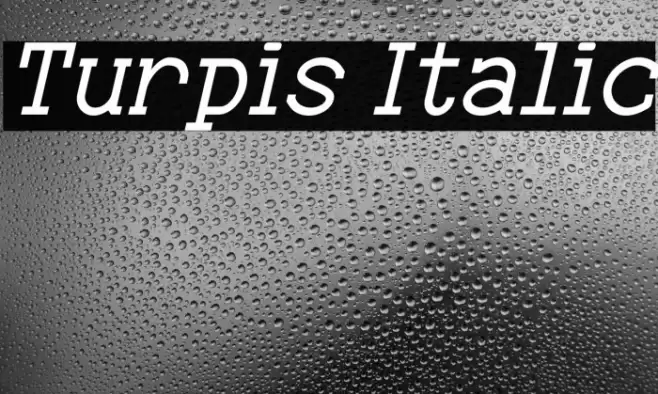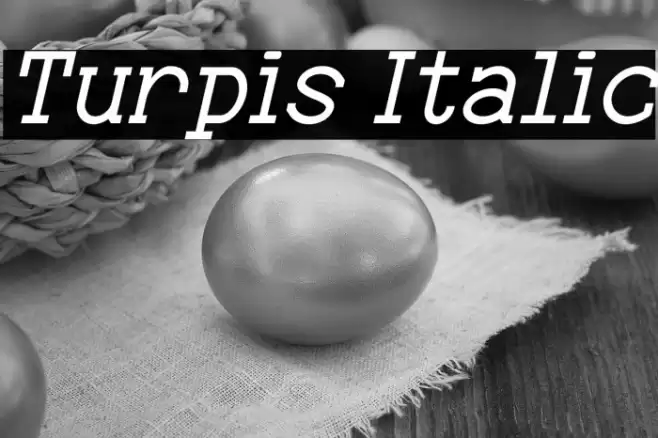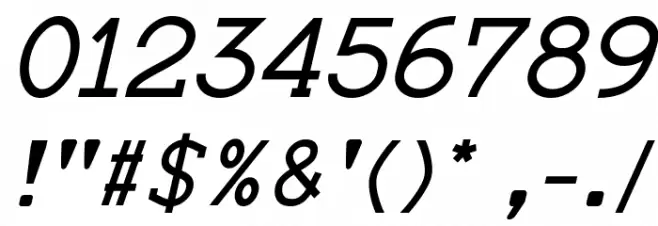
Turpis Italic Font
Turpis Italic Description
This font features a classic italic style with a slight slant, giving it an elegant and sophisticated appearance. The characters are well-defined with smooth curves and consistent stroke widths, contributing to its readability. The uppercase letters are tall and commanding, while the lowercase letters maintain a balanced and harmonious flow. Numerals are clear and distinct, making them suitable for both text and numerical data. The special characters are designed to complement the overall style, ensuring versatility in various contexts.
An elegant italic font with smooth curves and consistent stroke widths from Uncategorized fonts.
- Overall Style: Classic